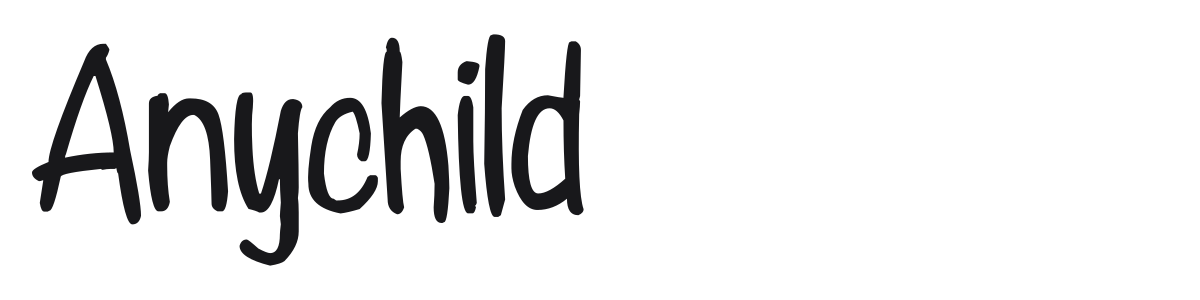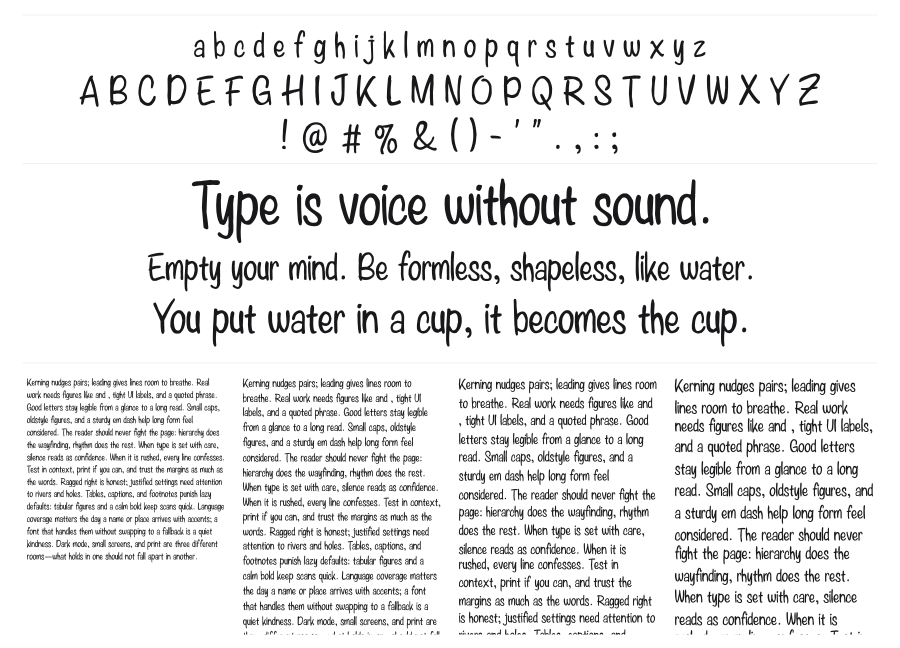
Anychild
Anychild is a casual handwritten font with rounded strokes and a natural, marker-drawn feel. Its slight irregularities and soft terminals give it genuine warmth without tipping into novelty excess. Works well for children's content, packaging, and any project that needs to feel approachable and human.